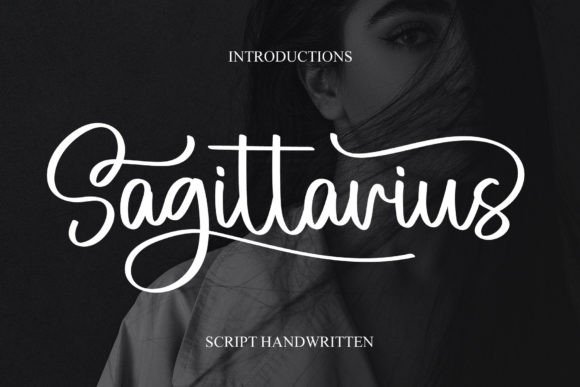
Feast your eyes on Sagittarius Font, a script font family that's the epitome of grace and elegance. Crafted with the utmost care by YanStudio, this font will leave you utterly captivated with its timeless beauty.
Step into a world of sophistication and let Sagittarius Font guide your creative vision. Its flowing lines and delicate curves evoke a sense of effortless charm, inviting you to create designs that speak volumes. Whether you're a seasoned designer or just starting your journey, Sagittarius Font is your perfect companion.
Envision your designs adorned with Sagittarius Font, whether it's a stunning business logo that commands attention or a heartfelt invitation that leaves a lasting impression. The possibilities are endless, and the results are guaranteed to mesmerize.
Indulge in the artistry of Sagittarius Font and watch your creative projects come alive. Its unique style and timeless appeal will transform your designs into masterpieces, leaving your audience in awe.
So, dive into the world of Sagittarius Font and let your imagination run wild. Create designs that captivate, inspire, and leave an unforgettable mark. Experience the magic of Sagittarius Font today and witness the transformation of your creative endeavors.